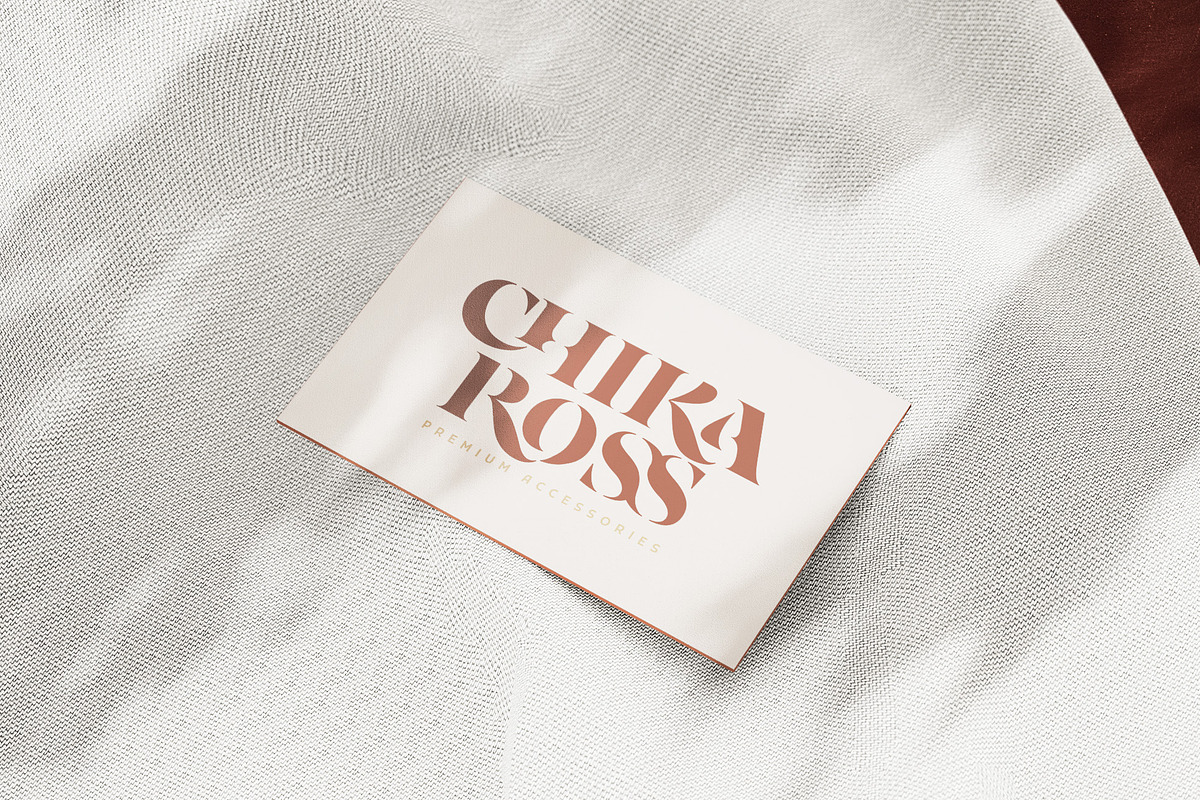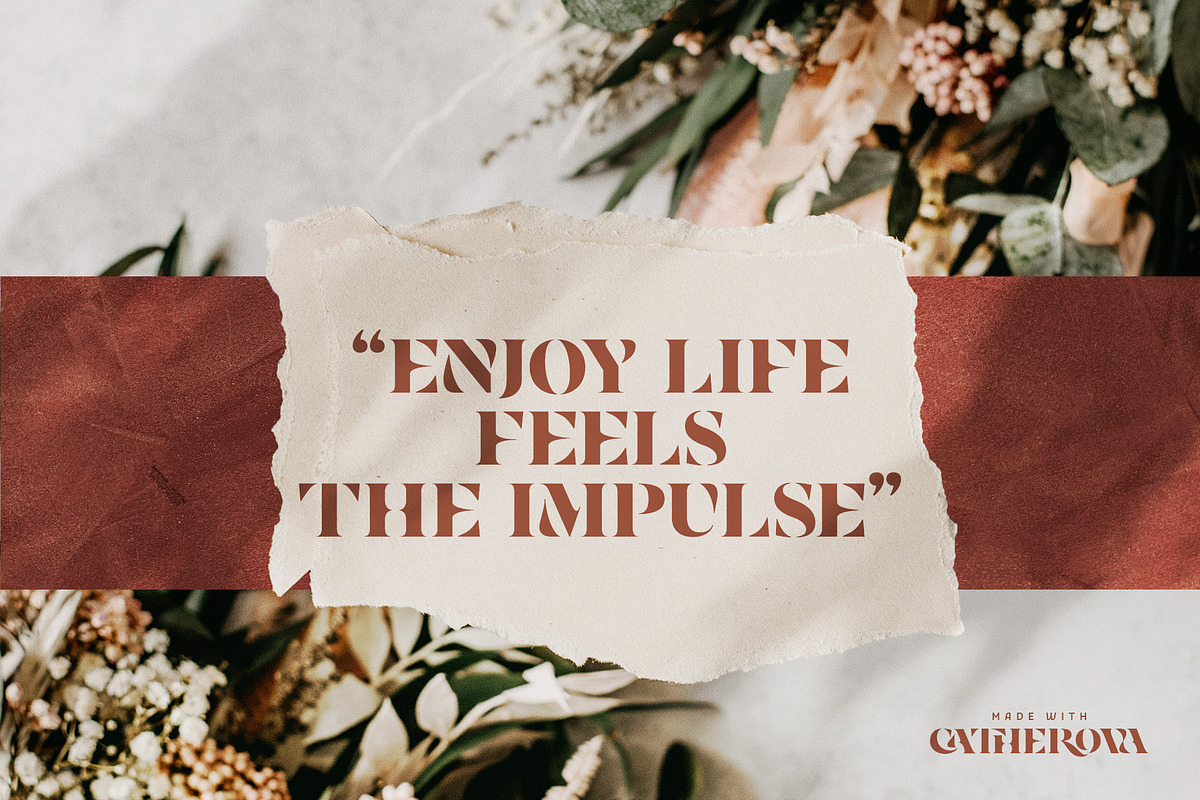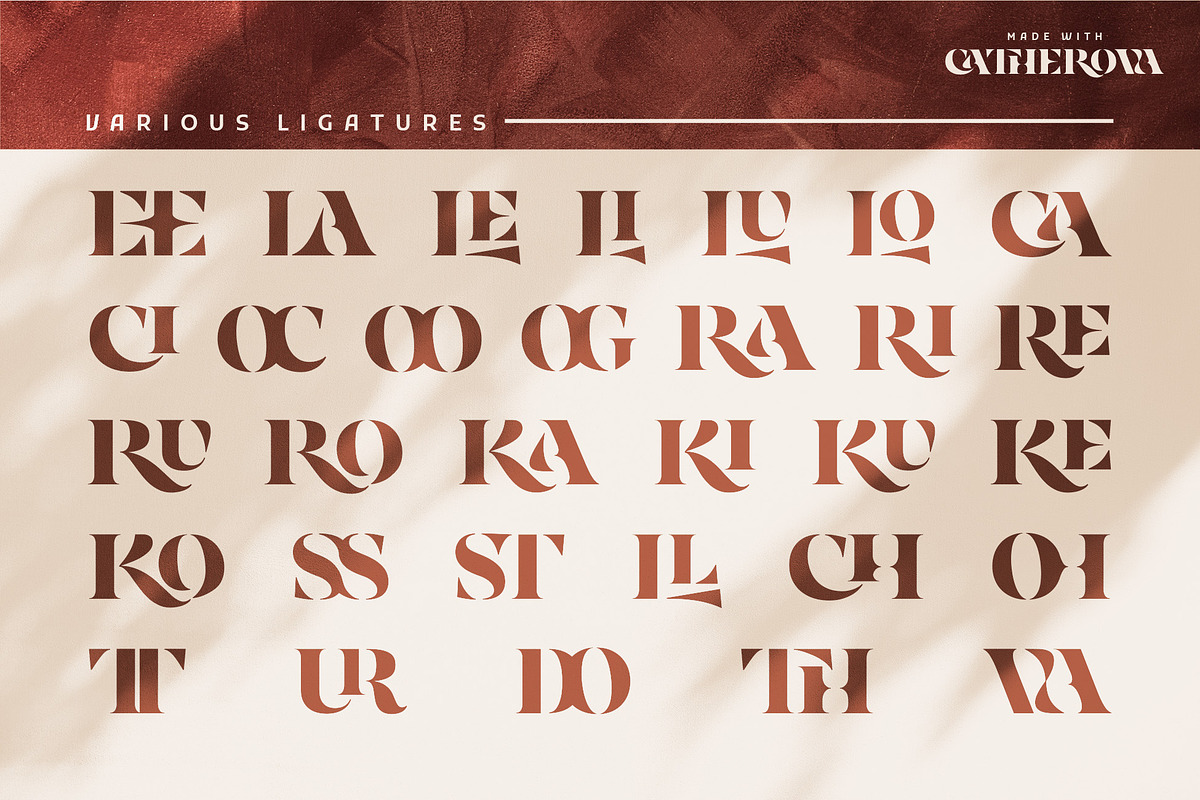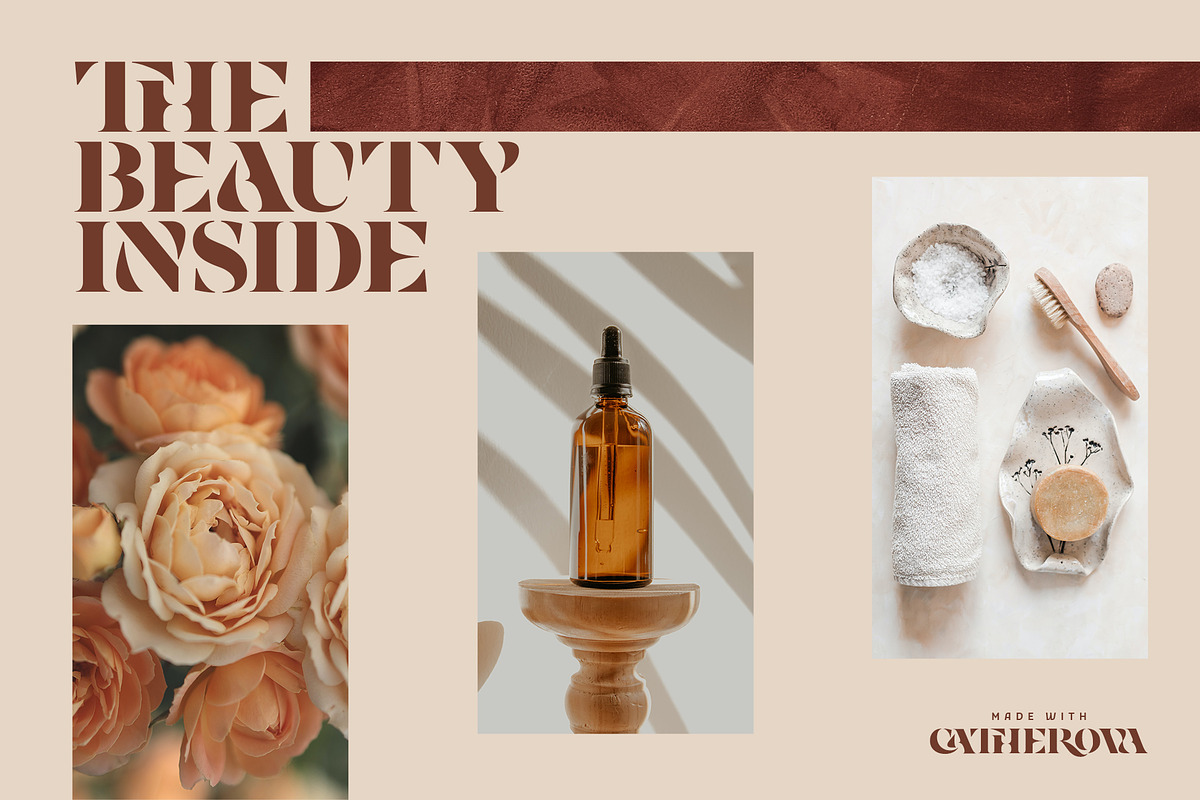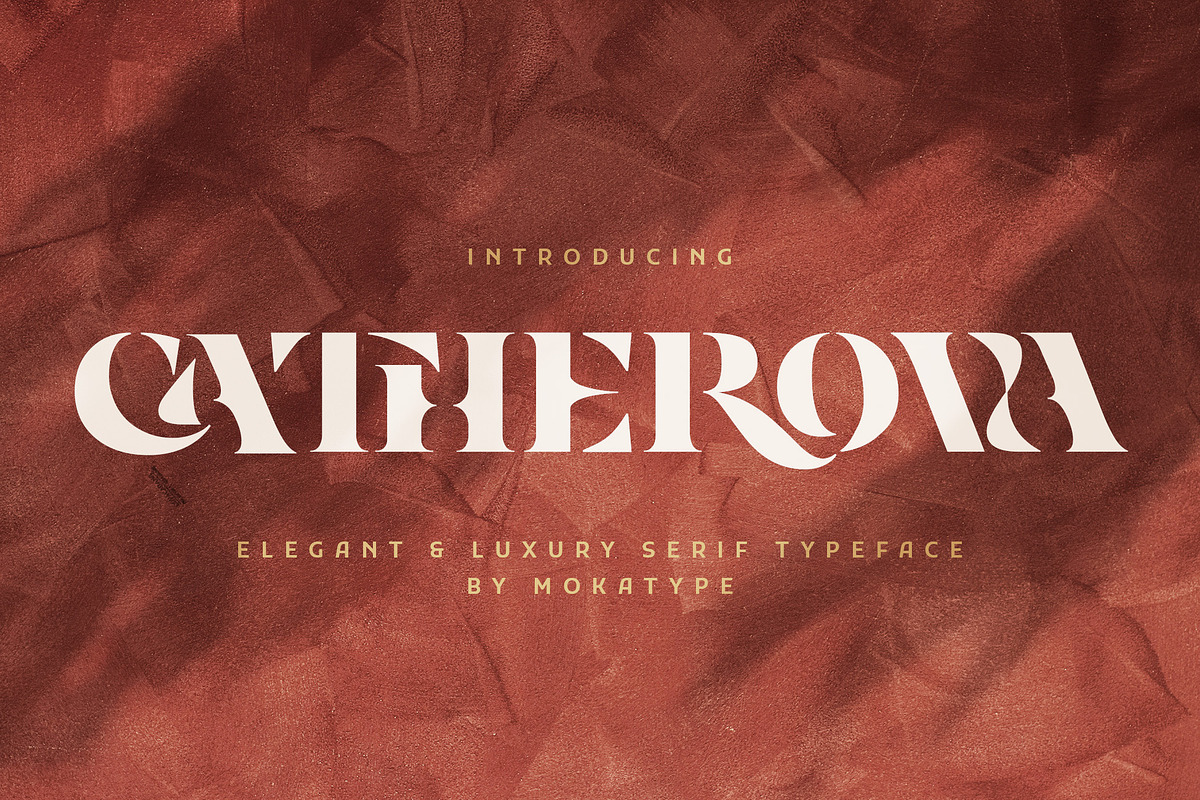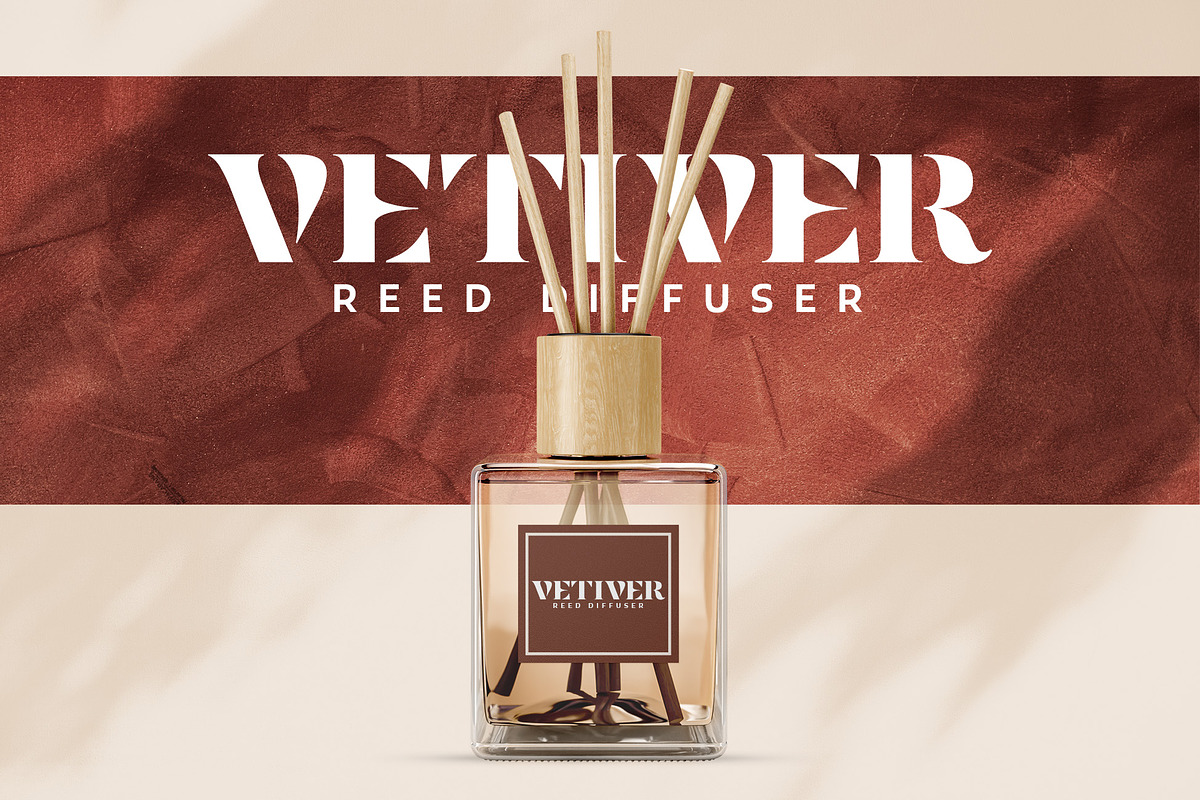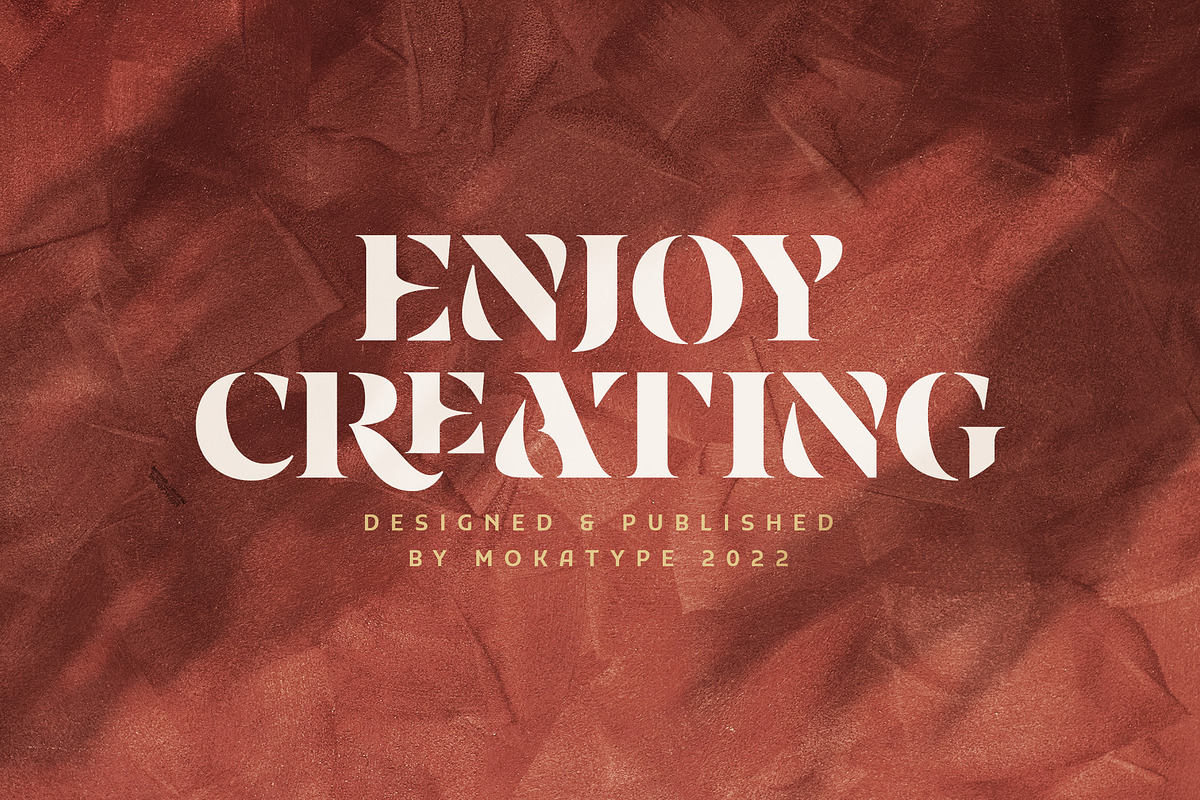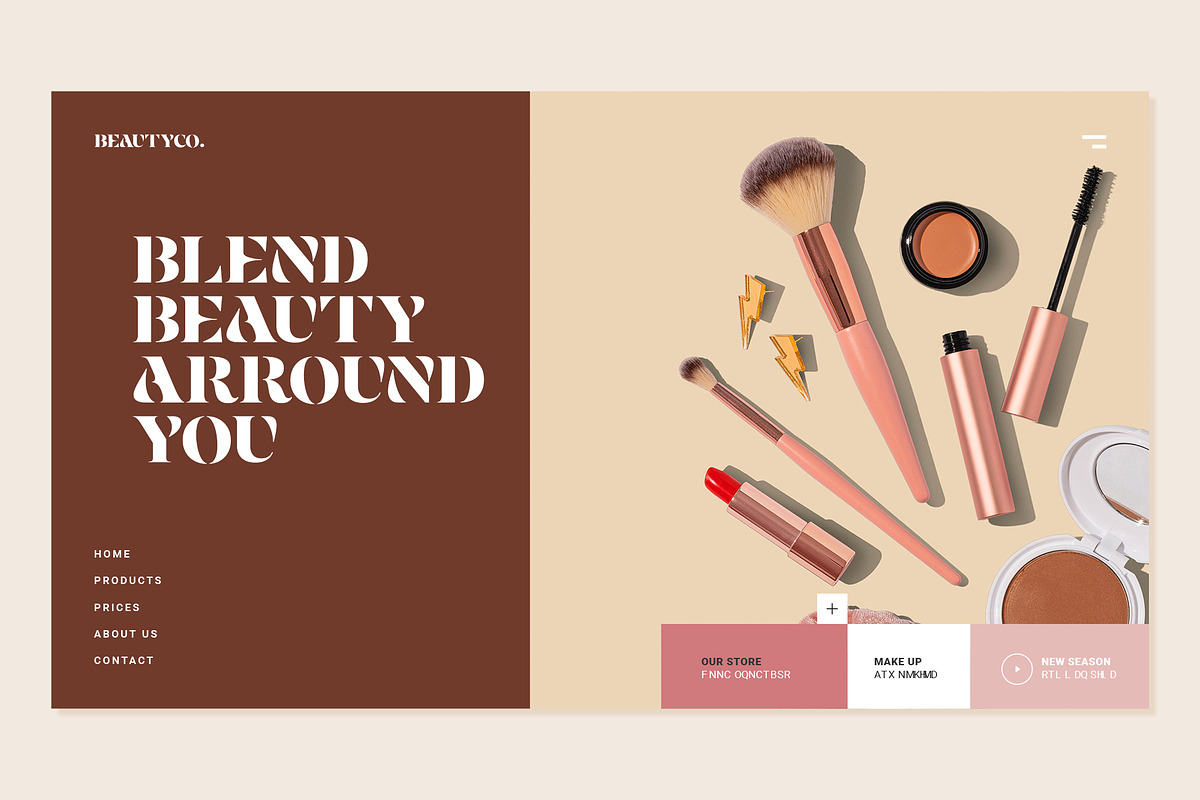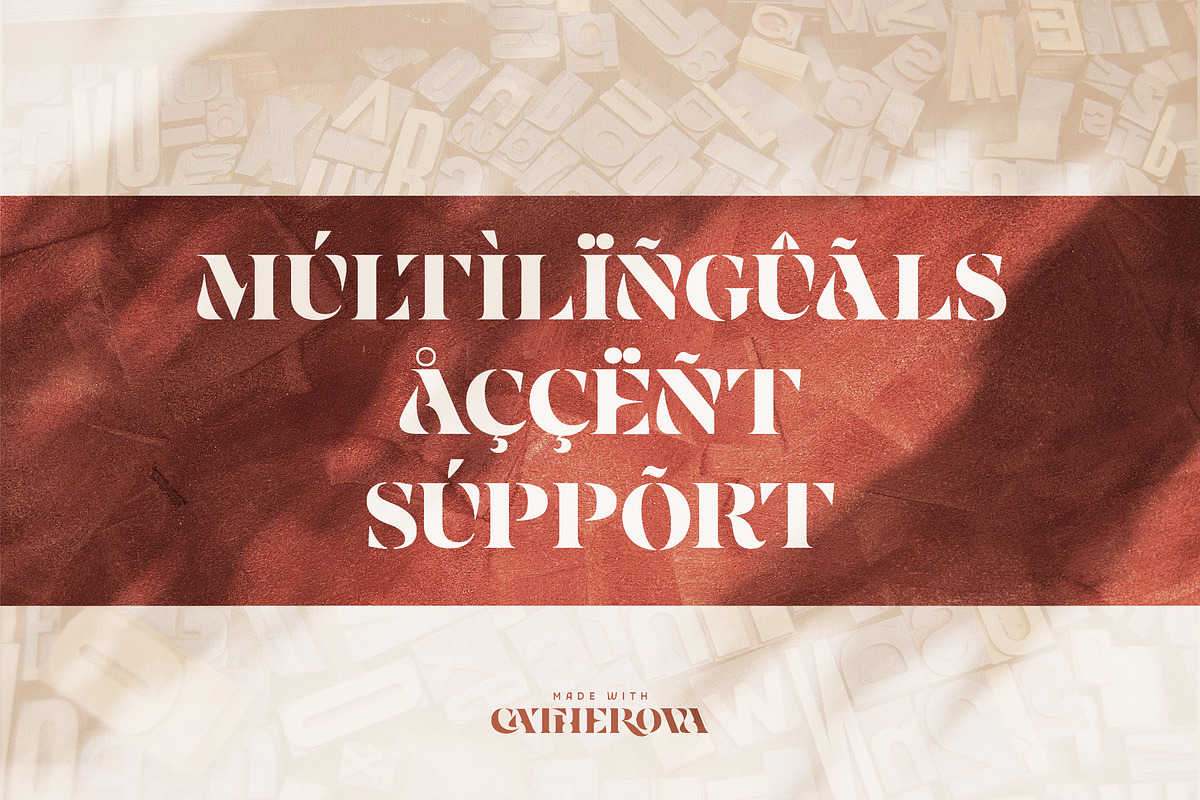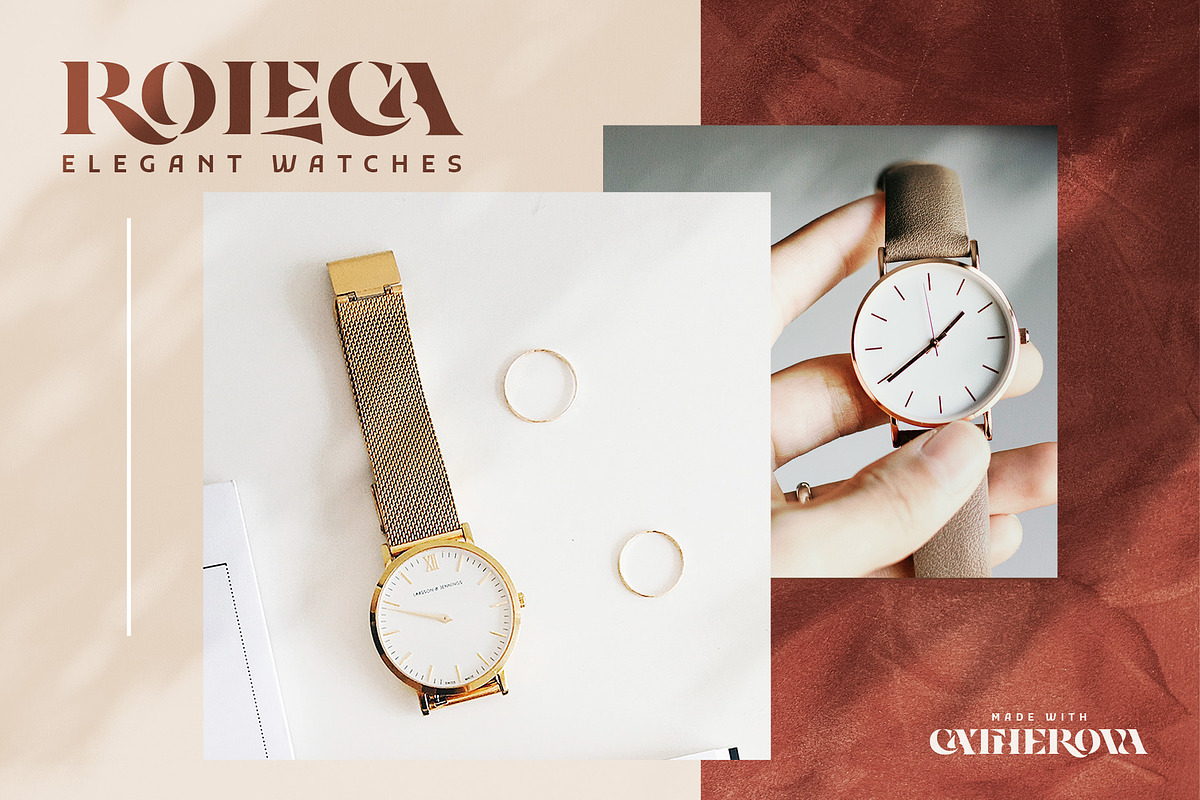
Catherova - Elegant Stencil
Catherova - An elegant and luxurious serif display inspired by the famous Elegant Luxury logo, suitable for designing logos, templates, brochures, videos, advertising branding, and more. Perfect for adding a unique touch to wordmark logos, the monogram comes with 31 ligatures that create lots of choice and uniqueness for your designs. What's Included: